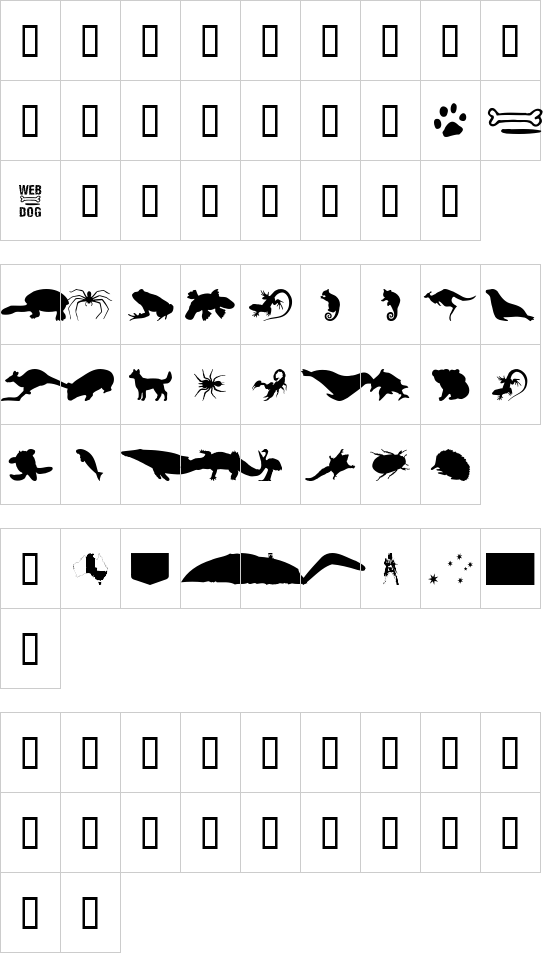
AussieIcons is a dingbat font packed with Australian animal and cultural symbols, from kangaroos and koalas to outback motifs, each ready to drop into a layout as a finished graphic. Every keystroke produces a tidy, recognizable illustration instead of a letter.
It is handy for travel brochures, zoo and wildlife branding, educational worksheets, and themed social media graphics celebrating the outback. AussieIcons is free to download as a TrueType file, and you can preview different keys to see which animals and symbols appear before placing them into your own design.